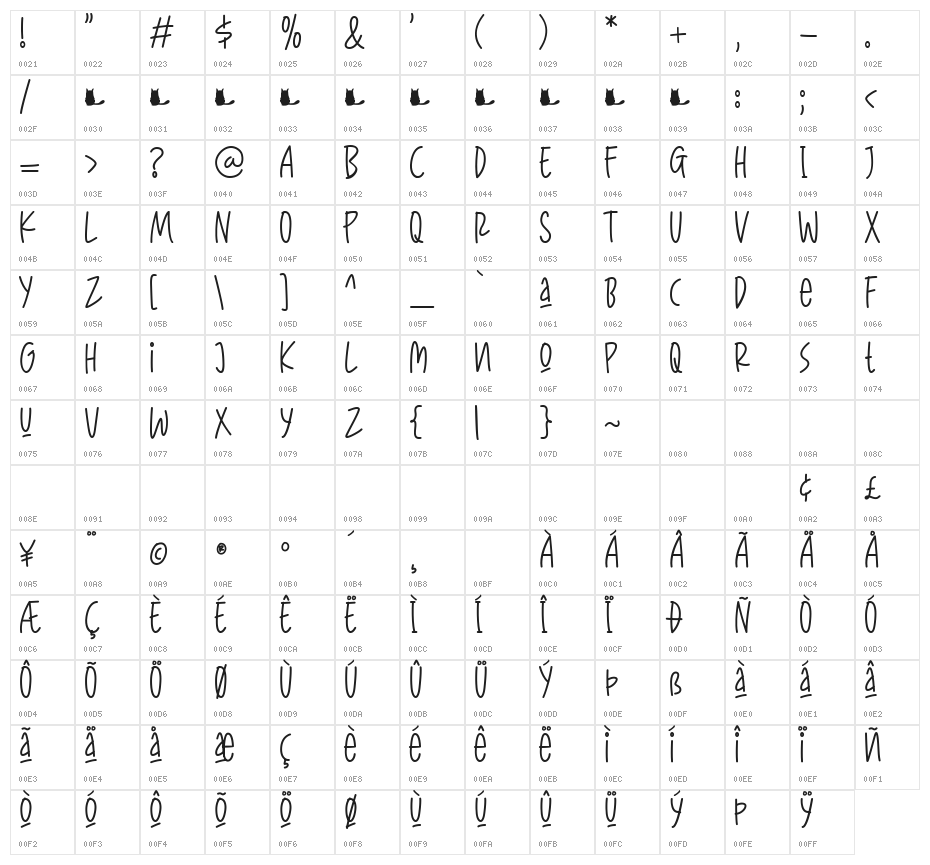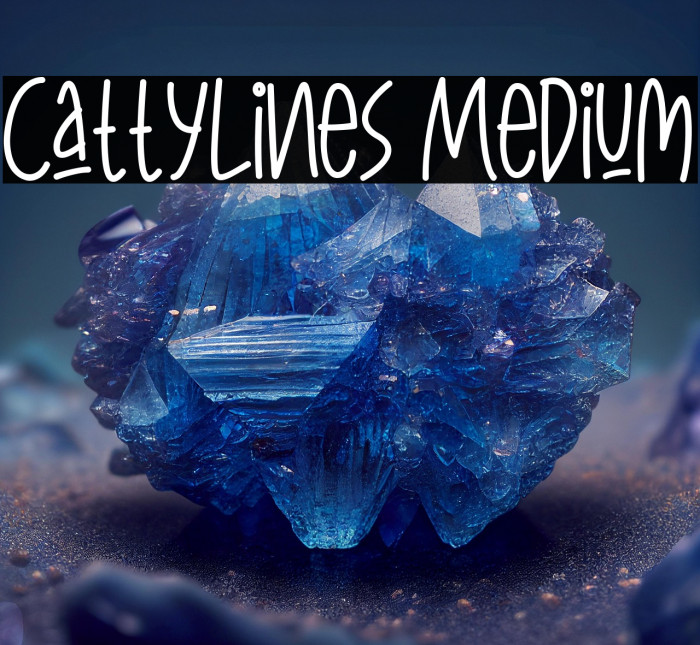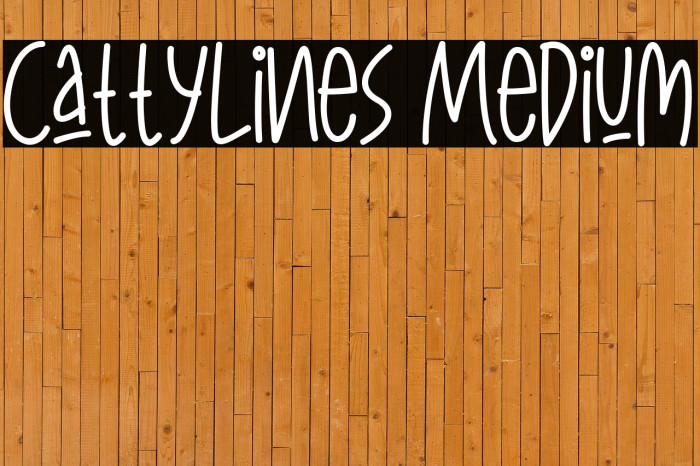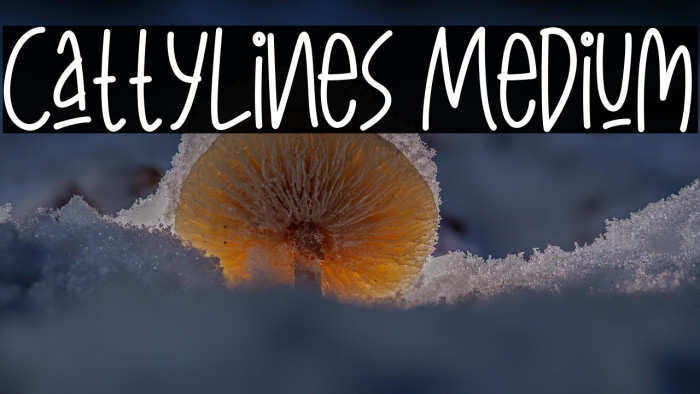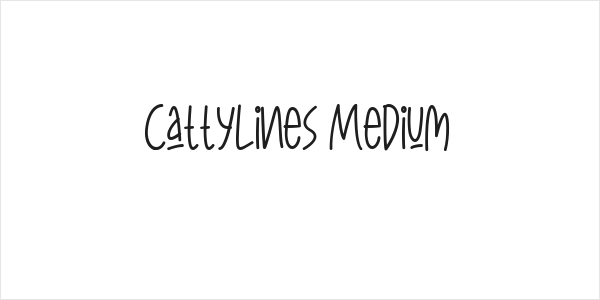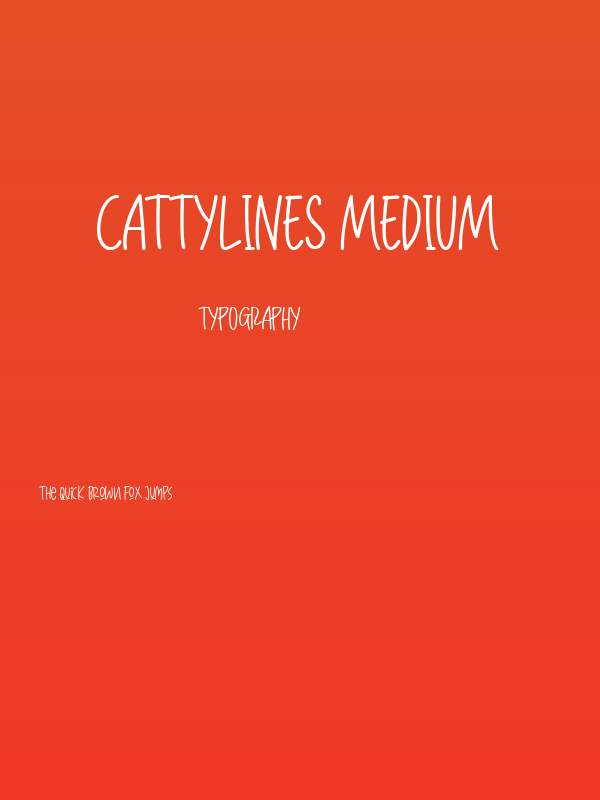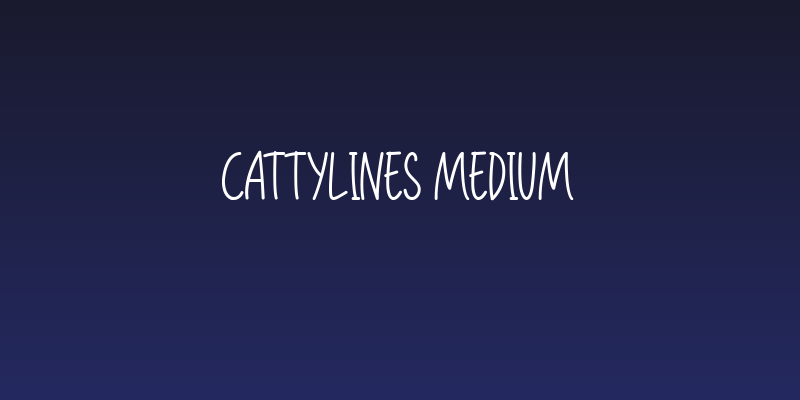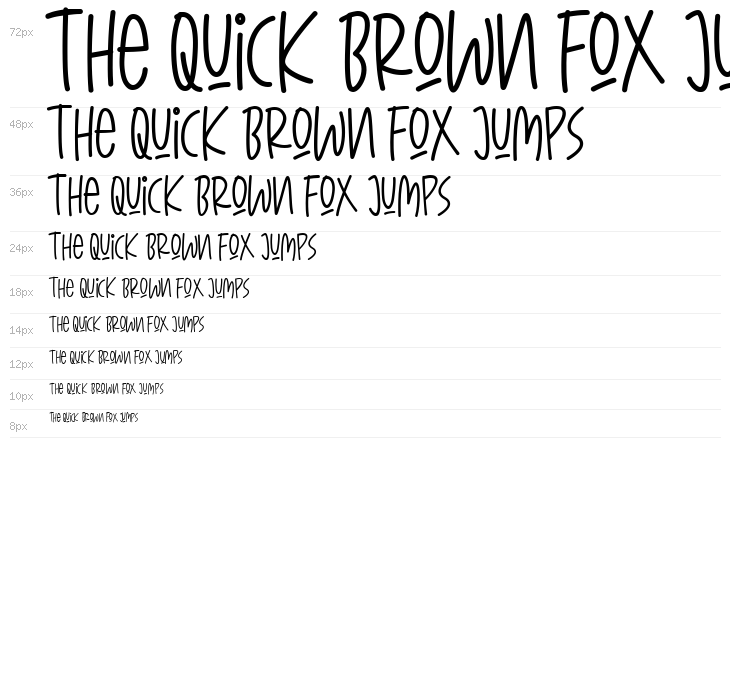
CattyLines Medium Font
CattyLines Medium Description
This playful and whimsical font features tall, narrow letters with a hand-drawn aesthetic. The characters have a casual, informal style, with slightly irregular strokes that add to its charm. The uppercase and lowercase letters maintain a consistent height, creating a cohesive look. The font includes a unique set of special characters, each designed with the same playful flair. Its distinctive style is further emphasized by the inclusion of cat silhouettes, adding a touch of fun and creativity.
| Proposed Projects | Ideal for children's books, playful branding, greeting cards, and creative posters. |